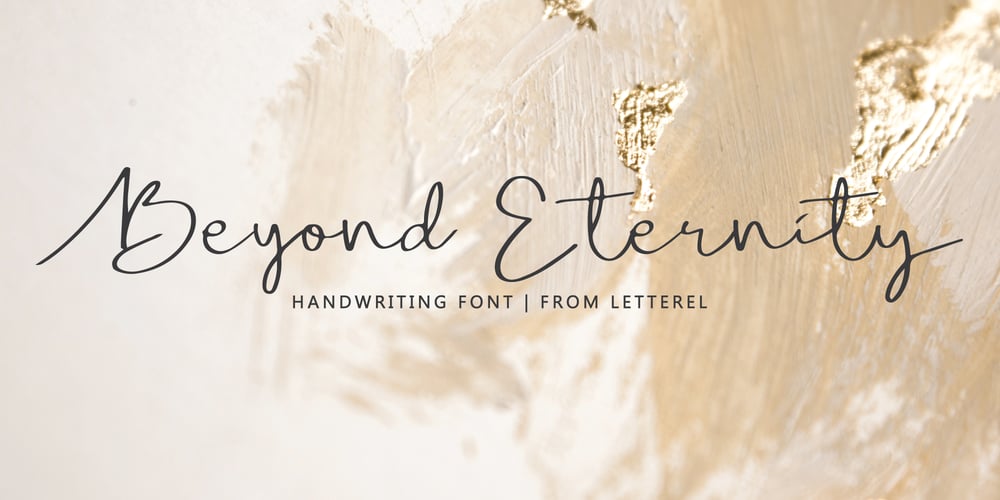
Beyond Eternity Font Family was designed by Lia Almuknisa and published by Fromletterel. Beyond Eternity contains 3 styles and family package options. Welcoming to a new script font from letterel “Beyond Eternity” Beyond Eternity is a delicate script font with opentype featured such as ligature, swash and alternates. There are two styles for uppercase, a casual one and alternates one with beginning swash. For lowercase there are both beginning and ending swash to complete your design needs. All characters are coming with PUA encoded, so they are accessible.If you are not common with opentype featured you can use Beyond Eternity Alternates to access Uppercase Alternates and Beyond Eternity Swash to access lowercase swashes with ease.Happy Design